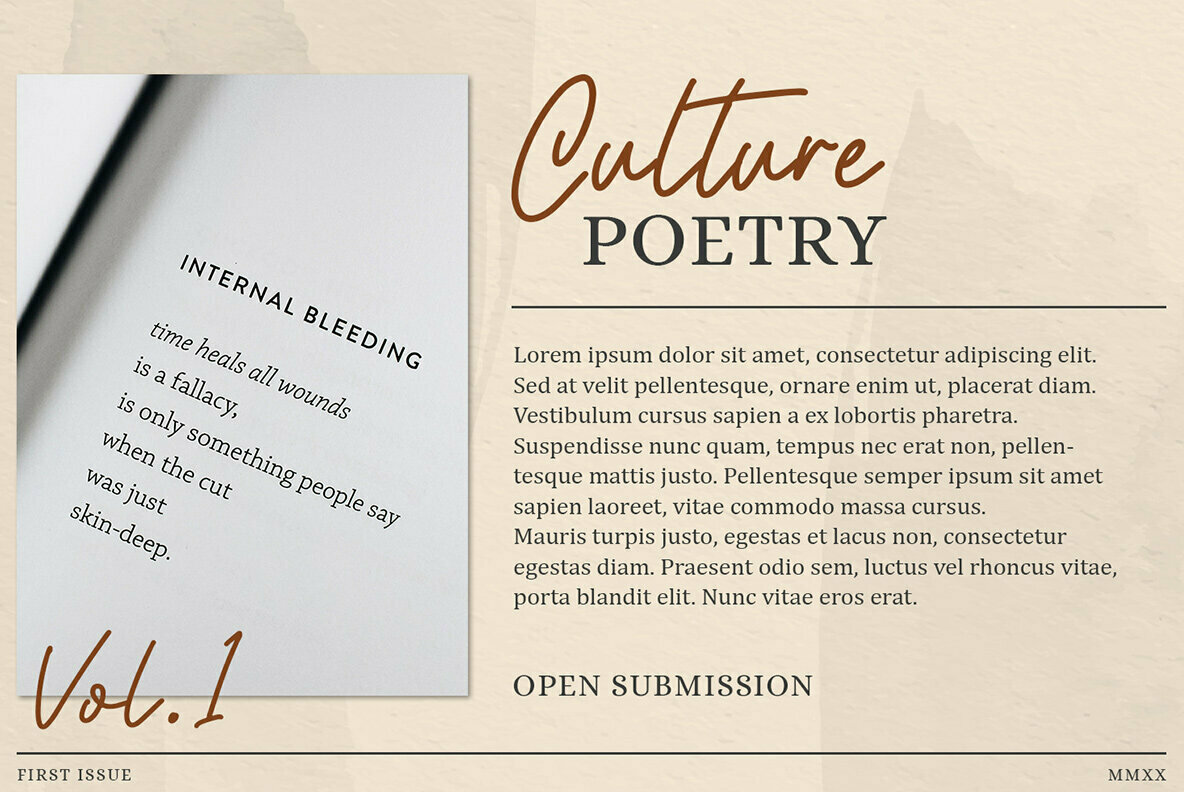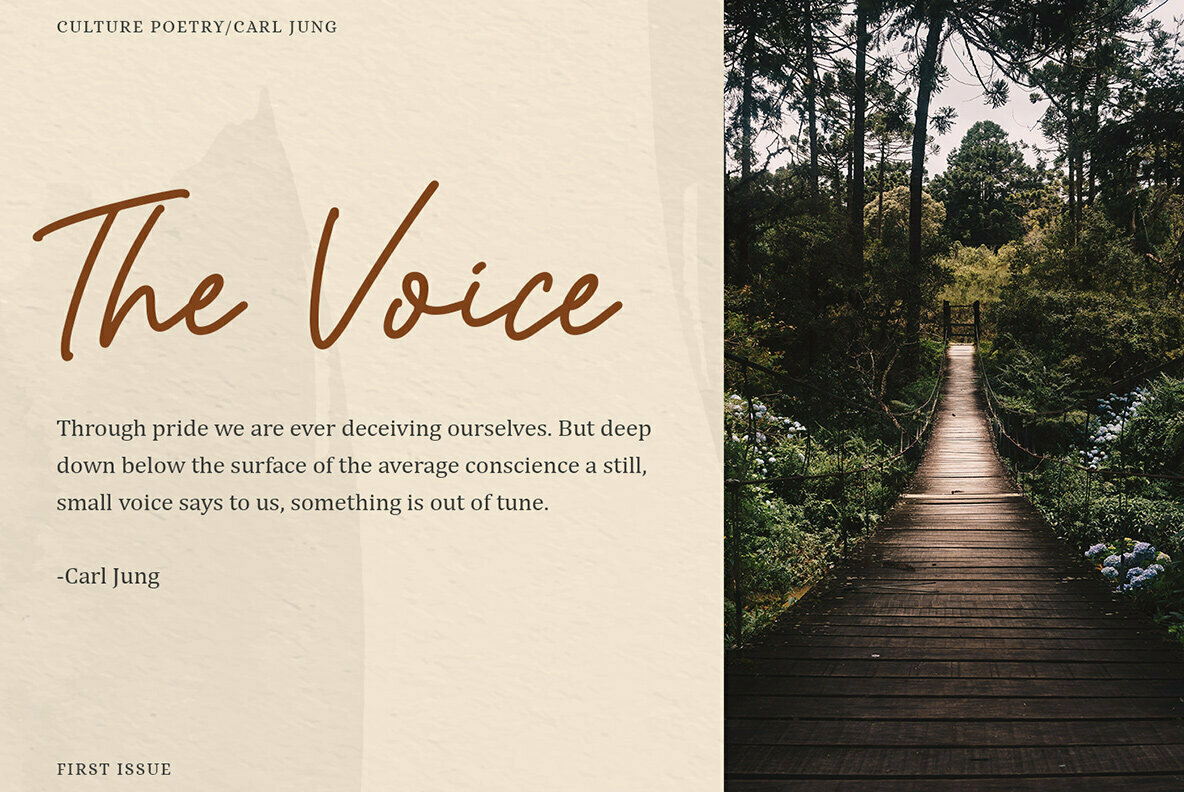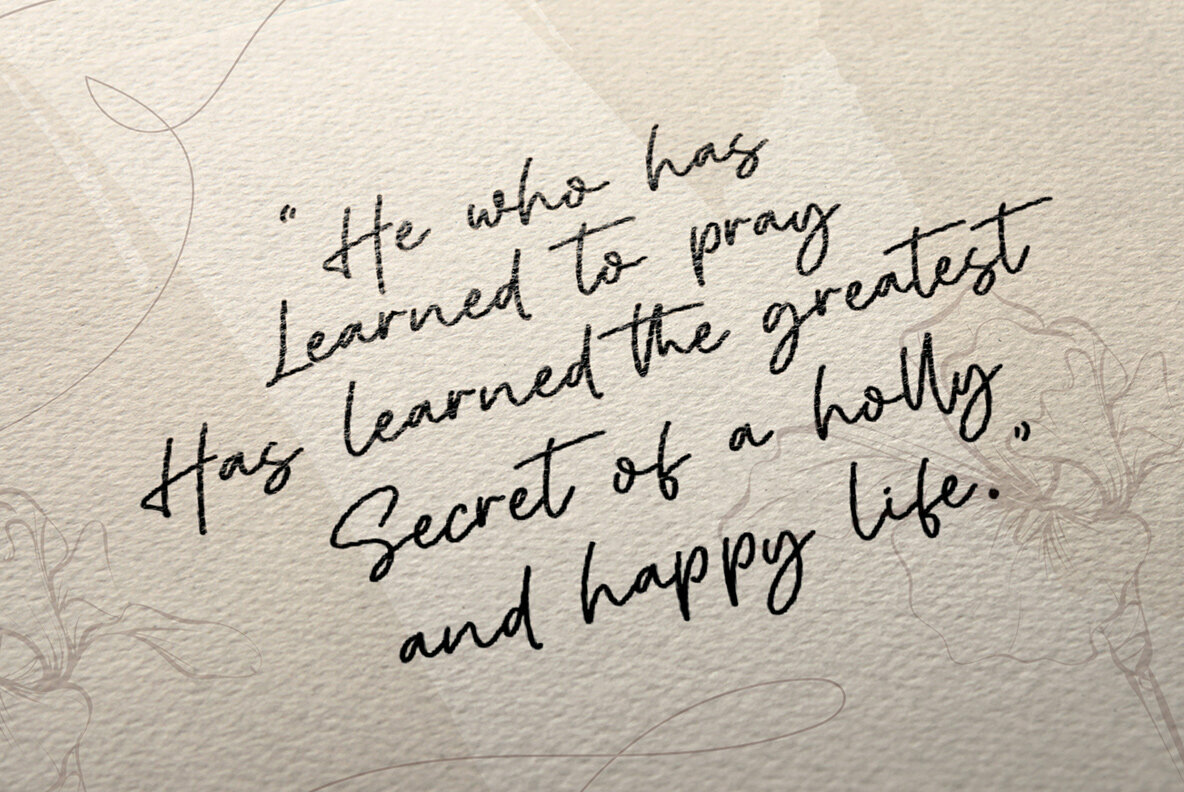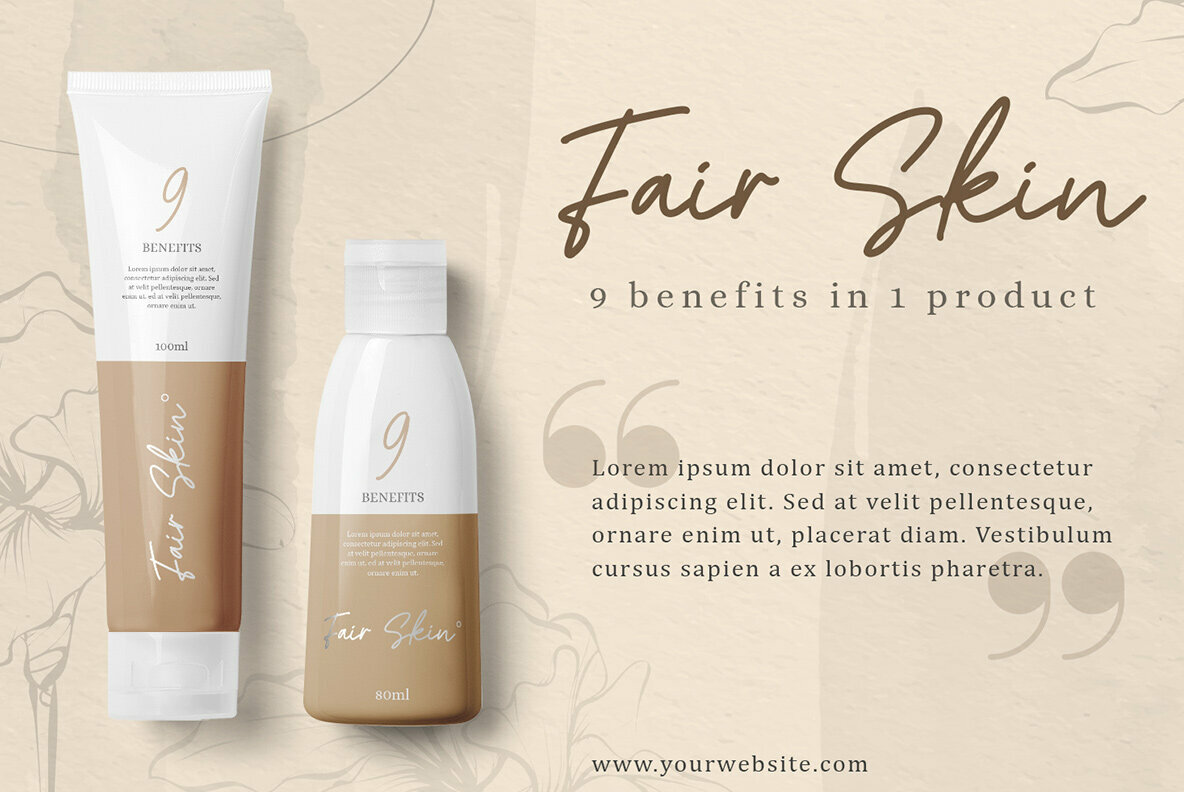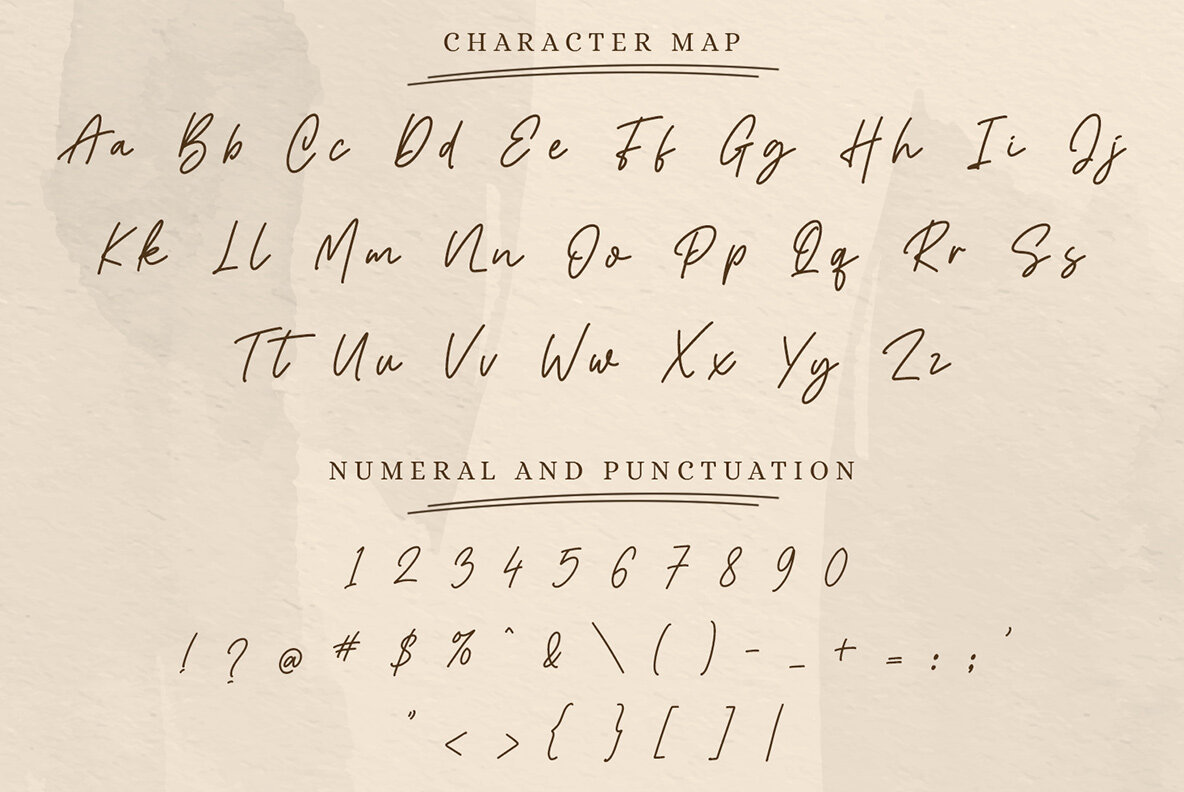
Menthol Signature Font
Menthol Signature
Elevate your professional project branding with Menthol Signature, a sophisticated monoline font that embodies elegance and precision in every curve. This typeface is designed to add a distinctive and stylish touch to each letter, making it an ideal choice for graphic designers and creative directors seeking to enhance their visual communication.Menthol Signature: A Classy Monoline Font